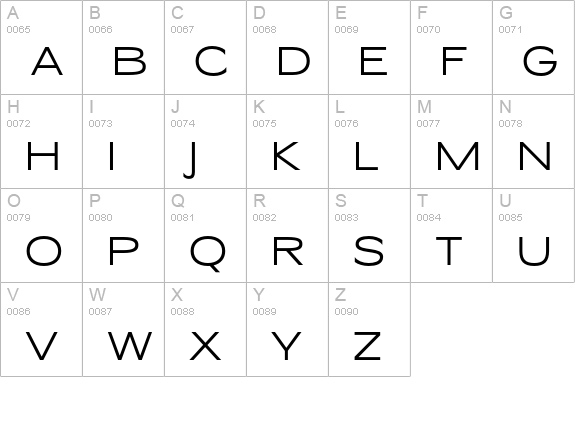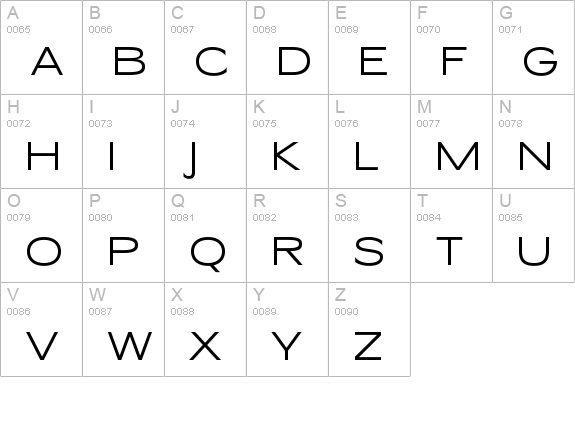
Cenios font is a stunning and versatile typeface that is sure to make your designs stand out. With its elegant and modern look, Cenios is perfect for a wide range of projects, from branding to editorial design. This font features clean lines and a sleek aesthetic that will add a touch of sophistication to any design. Whether you are creating a logo, poster, or website, Cenios is sure to make a bold statement.